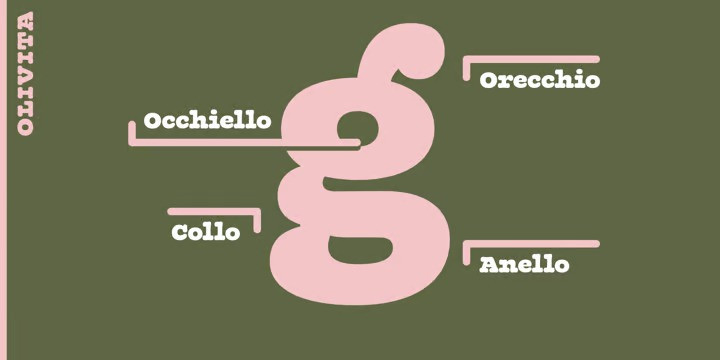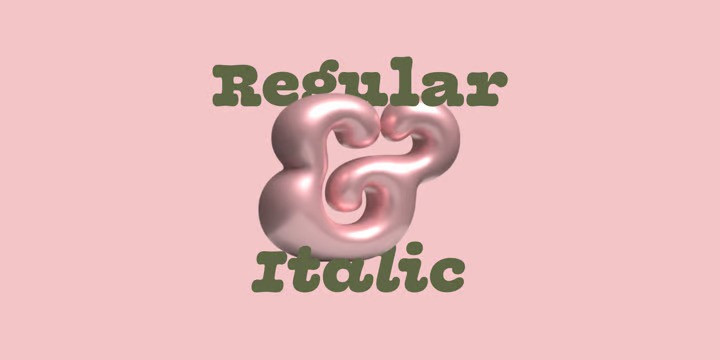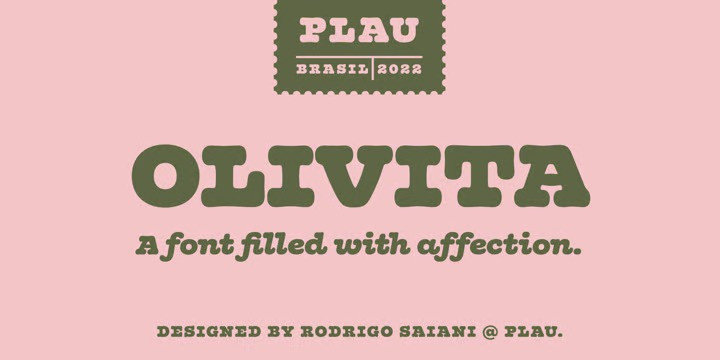
Olivita Font
Olivita Font Family is a heavyweight interpretation of the Typewriter genre. Typewriter fonts have captivated generations of designers and found its way into infinite applications, including Milton Glaser’s classic I heart NY logo. Olivita is a fat-face take on the same idea. There’s a lot to negotiate in making type as bold as possible, with shapes having to contort and distort in order to make a cohesive whole. The x-height is tall yet ascenders and descenders are long. Super size it and see the rich, creamy texture come forward.